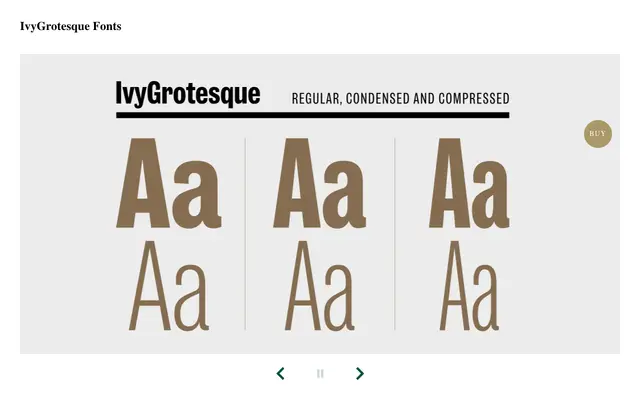
IvyGrotesque
A revival of Stephenson Blake Grotesque No. 9 from 1906, tightened for typographic layering across three widths and seven weights.
Rooted in Stephenson Blake Grotesque No. 9, the design reins in the original's more eccentric details to produce an even texture without losing its period warmth. The family spans three widths — regular, condensed and compressed — each in seven weights with matching italics, plus a variable font with slant, width and weight axes. Space-saving proportions make it well suited to visually dense layouts such as magazines, posters and book covers.
A grotesque sans rooted in the Stephenson Blake Grotesque No. 9 from 1906, with eccentric details tempered for even colour while retaining period warmth.